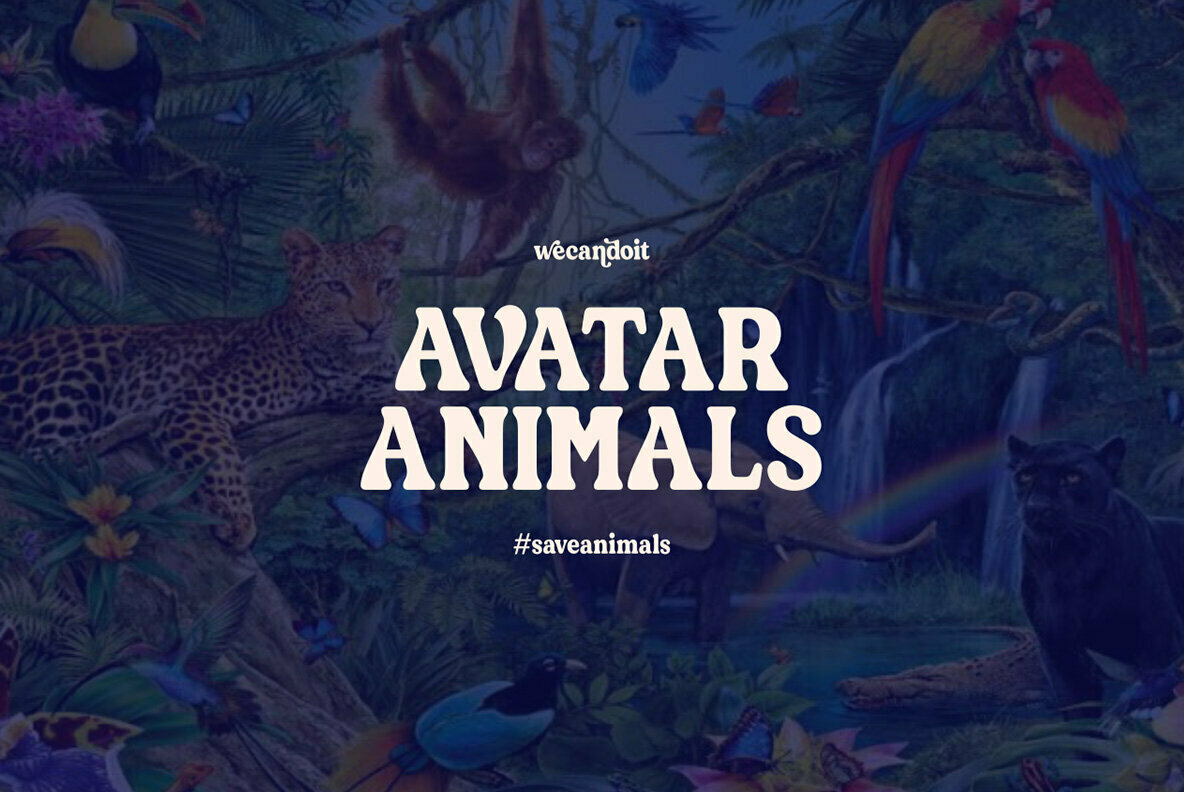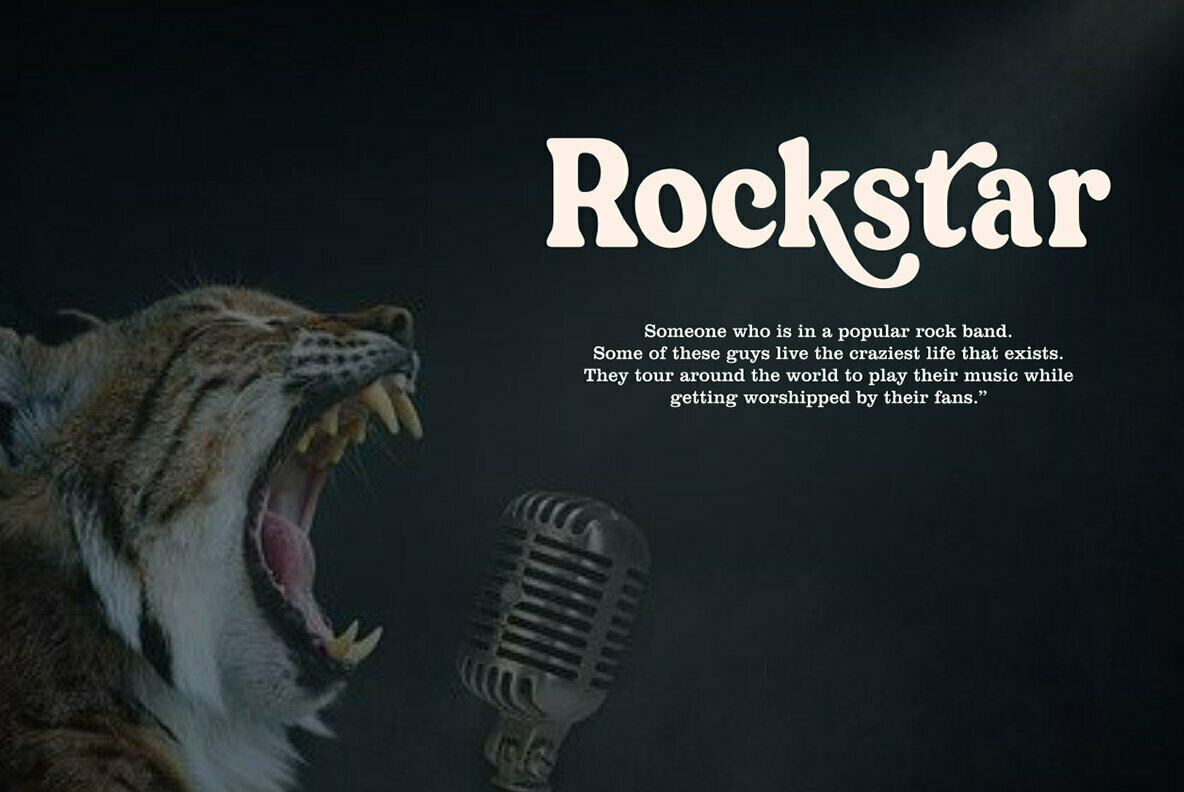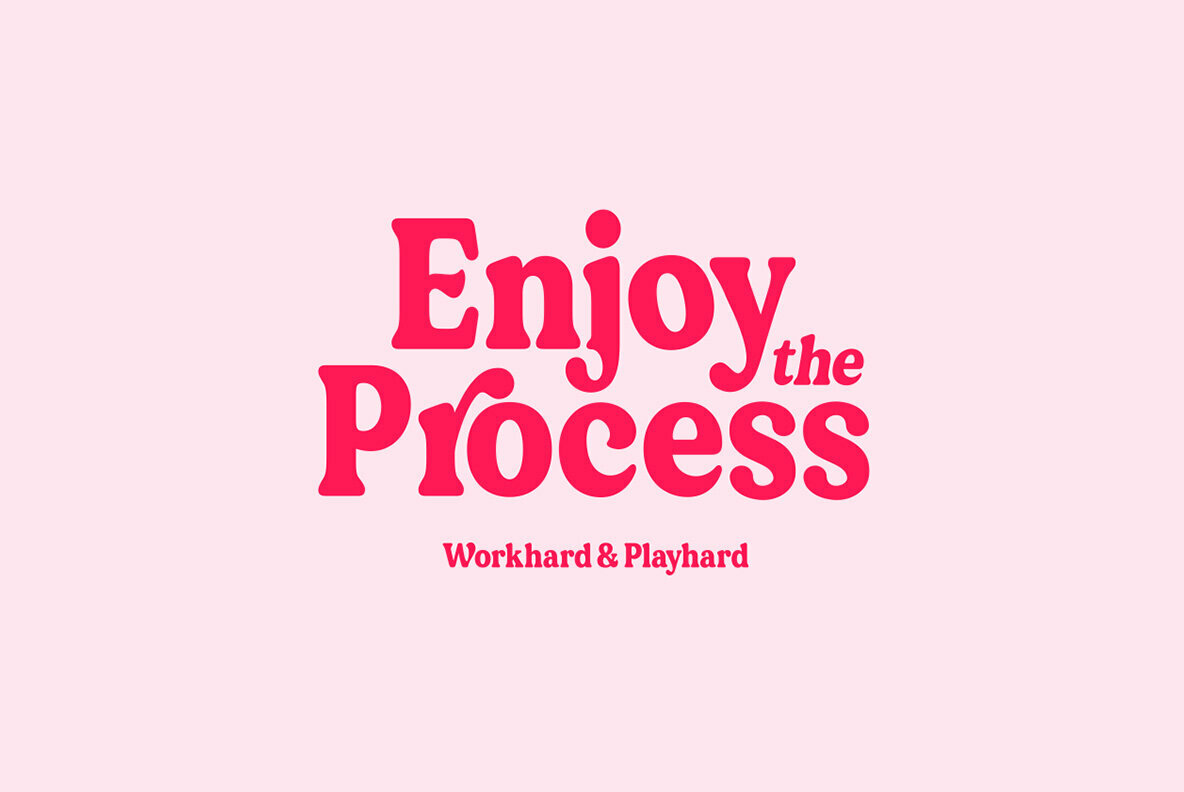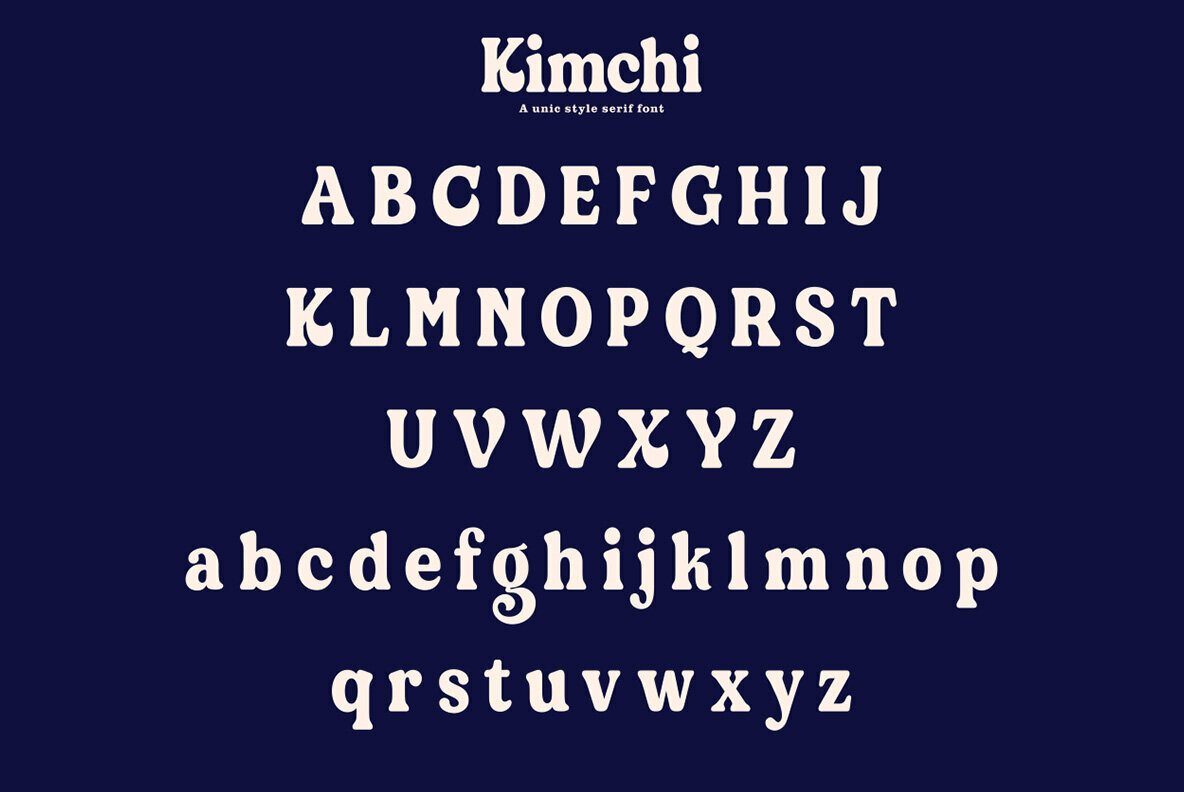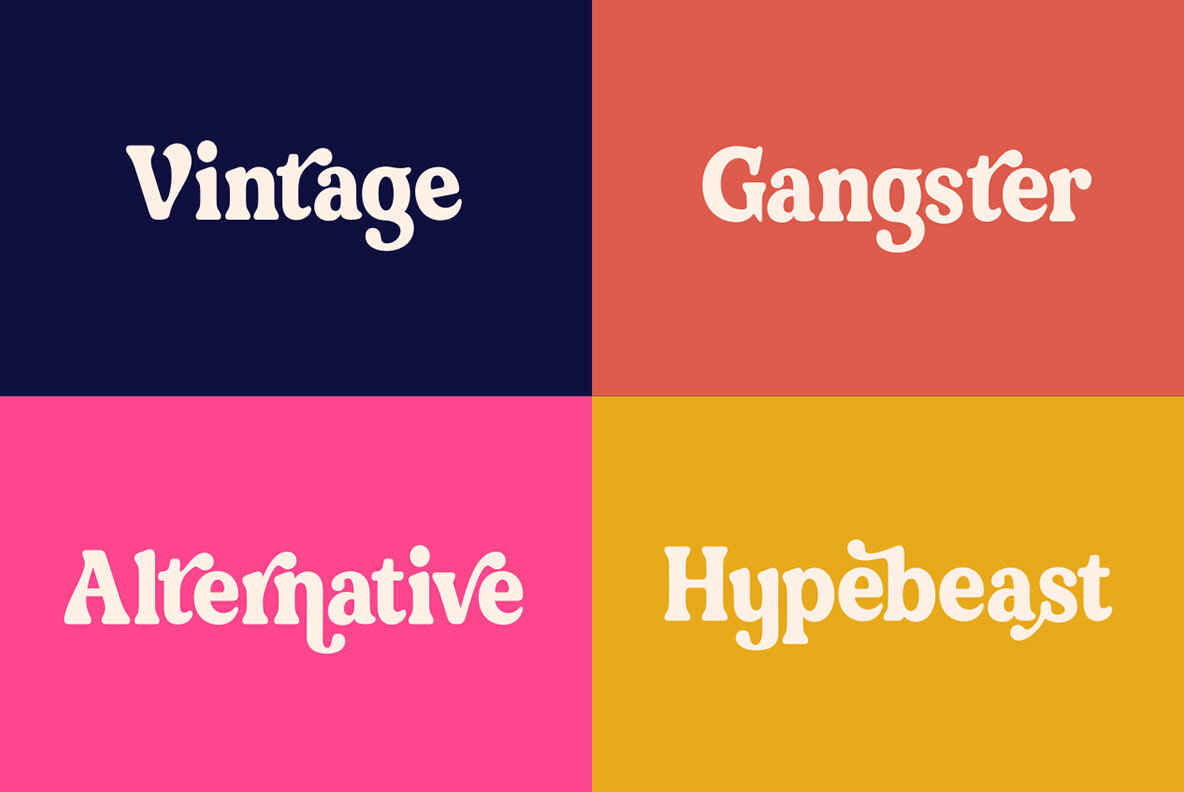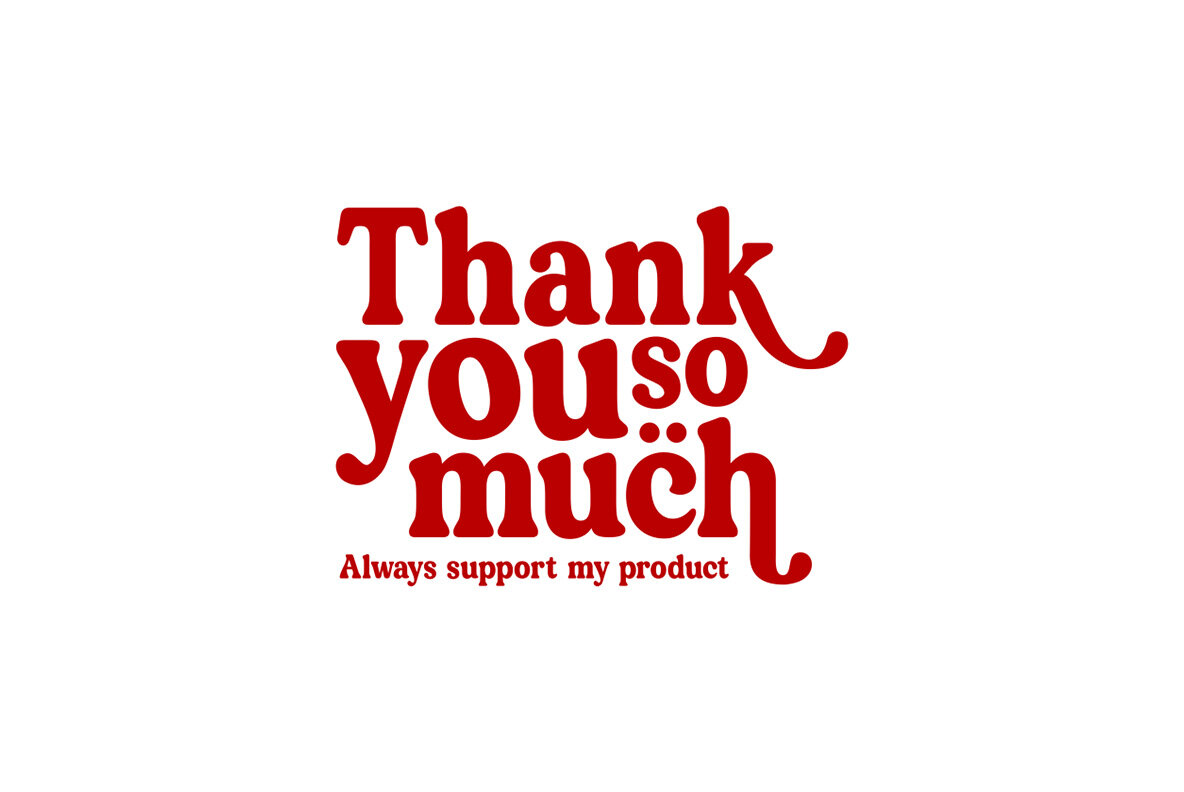
Kimchi Style 1
Kimchi Style is a unique font that combines elegance with a retro feel. Ideal for designers looking to add a distinctive touch to their projects, this font offers a beautiful blend of uppercase and lowercase letters, amplified by alternative glyphs for creative versatility.
This complete font set includes capital and lowercase letters, multi-lingual support, currency figures, numerals, and punctuation, as well as extra stylistic alternates. Whether you're designing logos, posters, or any other graphic design project, Kimchi Style provides a robust toolkit to elevate your designs with its versatile and eye-catching character set.